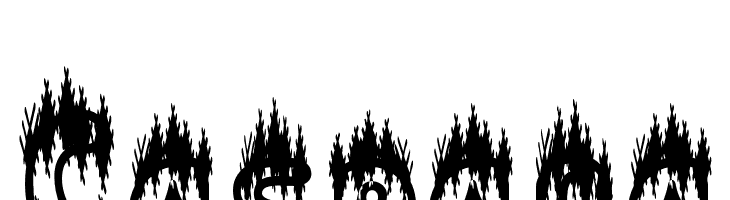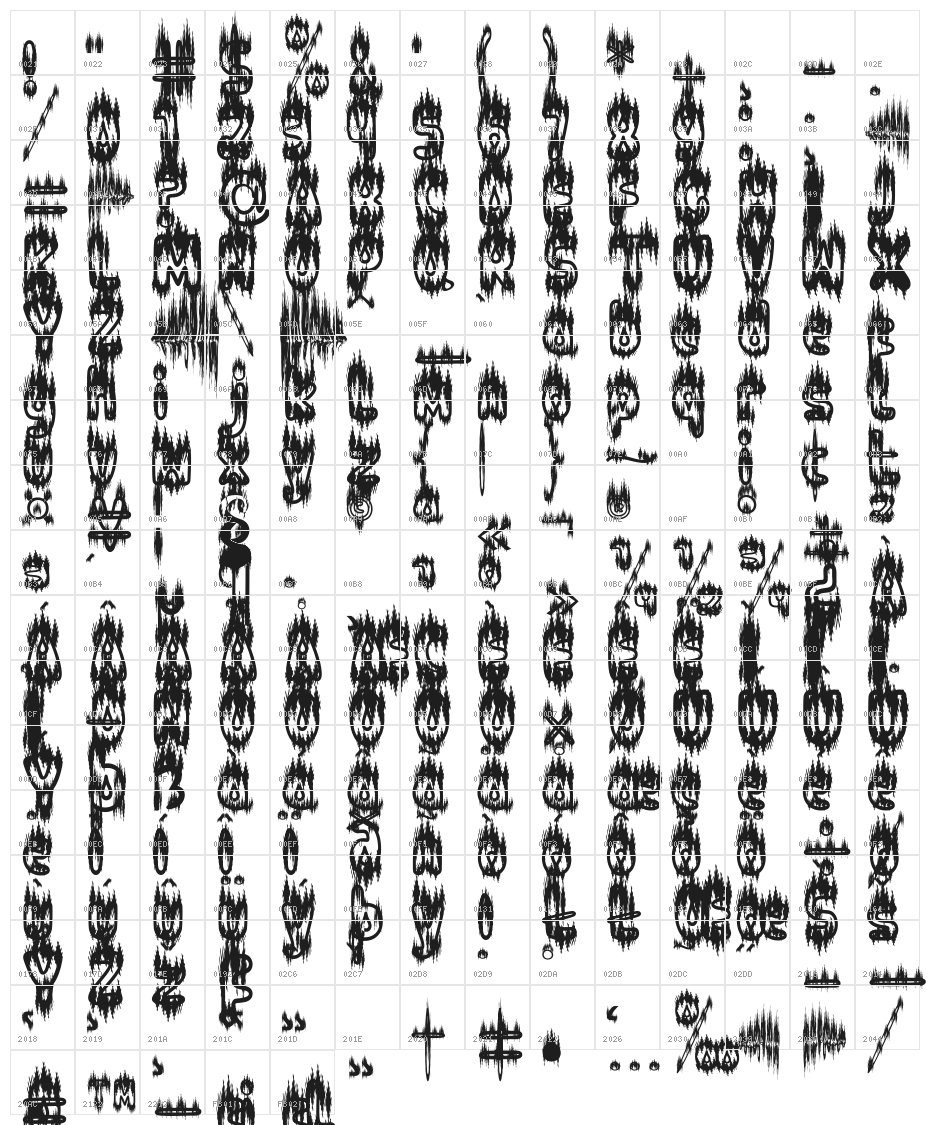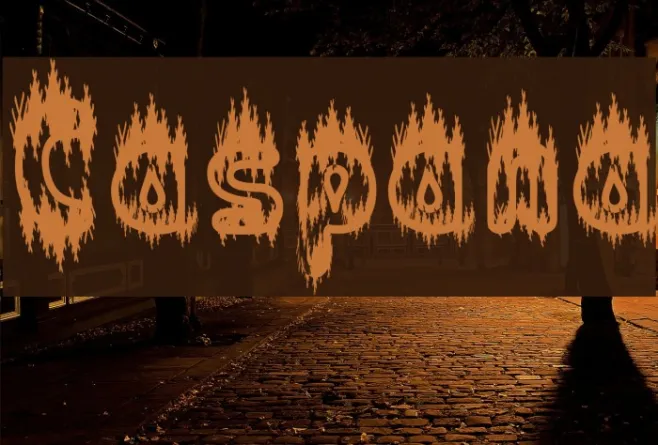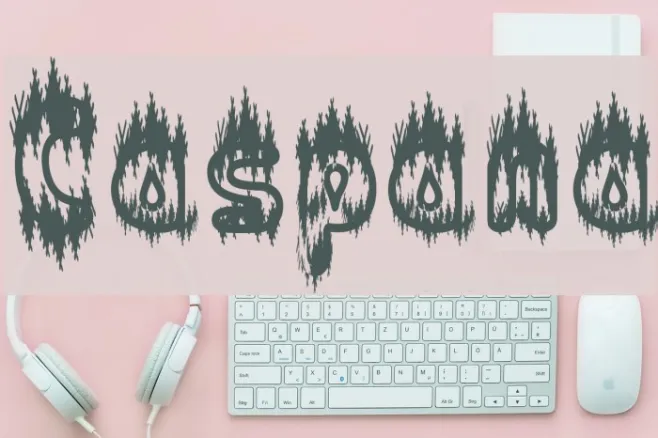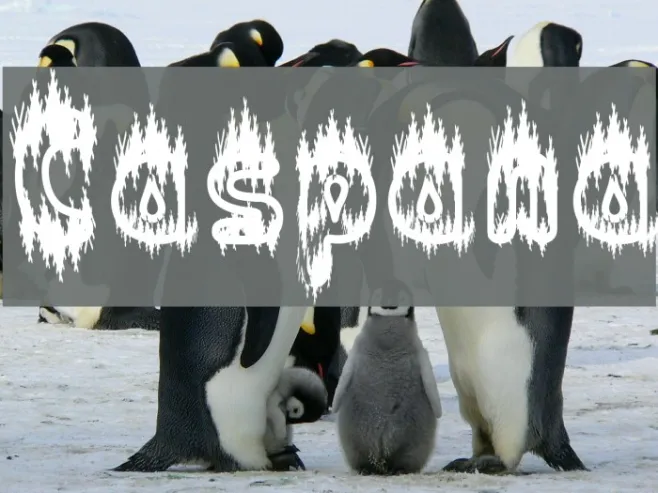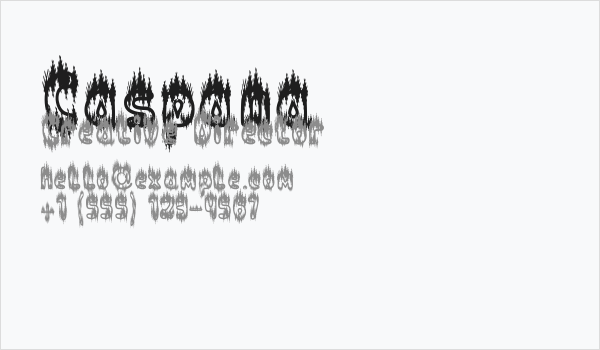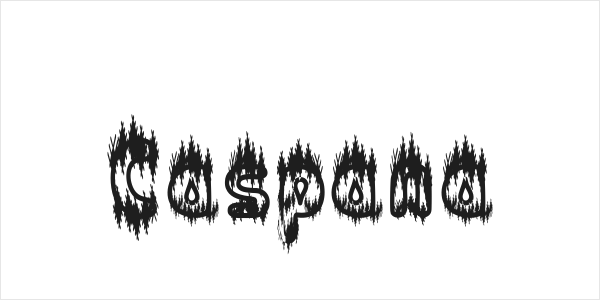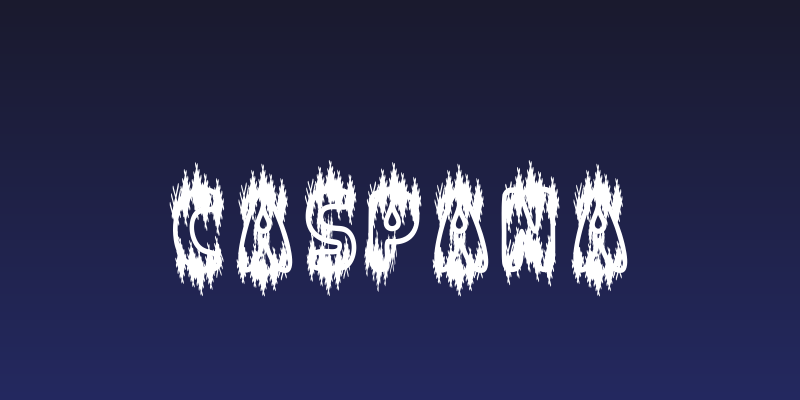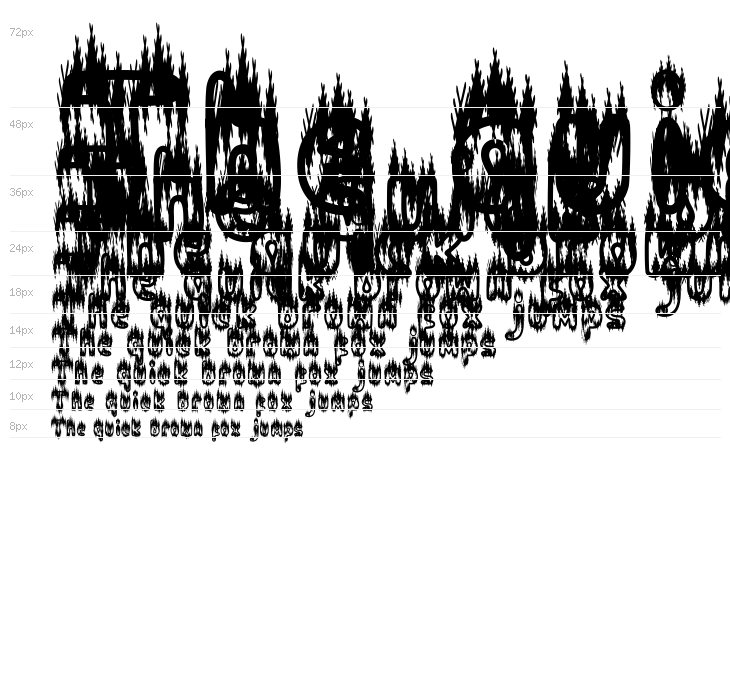
Caspana Font
Caspana Description
This font features a dramatic and fiery design, with each character engulfed in stylized flames. The bold and intense appearance makes it stand out, capturing attention with its unique and edgy style. The uppercase and lowercase letters, along with numbers and special characters, all follow this consistent theme, creating a cohesive look. The intricate detailing of the flames adds depth and texture, making it ideal for projects that require a strong visual impact.
| Use Case | Logos, Posters, Headlines |
| Proposed Projects | Ideal for Halloween-themed designs, rock band logos, event posters, or any project needing a fiery, dramatic flair. |